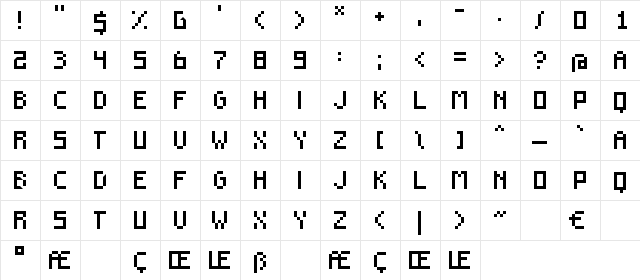
F910 Regular
Design Context for F910 Typeface
F910 offers clean, dependable letterforms without strong stylistic allegiance, making it a practical choice for designers who need flexibility.